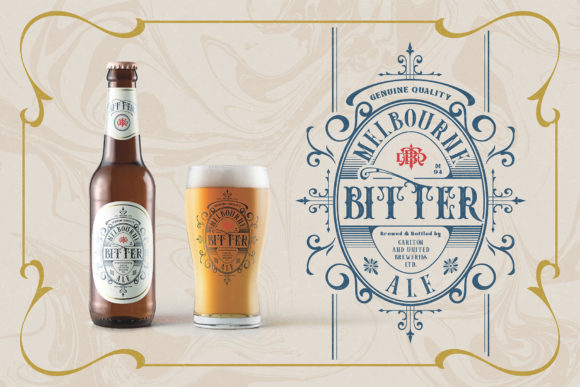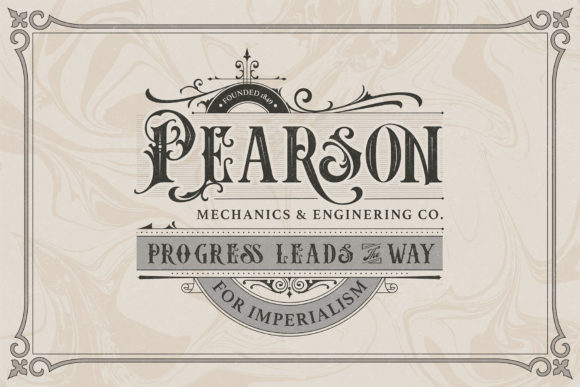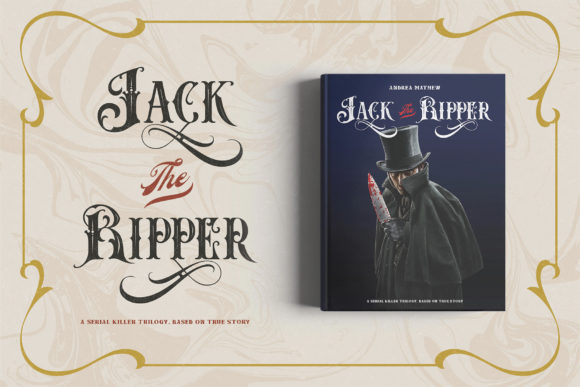
Introduction to Mooners Font
Have you ever stared at a blank canvas, struggling to bring your creative vision to life? The blank page can be daunting, but sometimes all it takes is the right design resource to spark inspiration. For designers seeking a high-quality, unique font to elevate their creative project, we’re excited to introduce you to Mooners Font – a stunning blackletter font that’s about to become your new go-to.
| 👤 Author | Burntilldead |
With its intricate details and ornate flair, Mooners Font is perfect for designers who crave a little extra something to make their designs stand out. And the best part? This font is PUA encoded, allowing you to access all of its glyphs and swashes with ease, making it a valuable addition to any designer’s toolkit.
- Unique and stylish design elements, including elegant lines and subtle textures, making it perfect for modern and minimalist designs.
- Designed to be highly legible and readable, even at small sizes, making it ideal for use in a variety of creative projects.
Honest Review: Mooners Font
As a designer, I’m always on the lookout for high-quality design resources that can elevate my creative projects. Recently, I had the chance to try out the Mooners Font, and I’m excited to share my honest review with you.
- ✨ Unique and playful design style that adds a touch of whimsy to any project
- ✨ High-quality font files that are crisp and clear, even at larger sizes
- ✨ Transparent background, making it easy to use on any design background
- ⚠️ Limited character set, which may not be suitable for longer blocks of text
- ⚠️ Not as versatile as some other fonts, which may limit its use in certain design contexts
Overall, I’m impressed with the Mooners Font, and I can see it being a great addition to any designer’s toolkit. The free download is a definite plus, making it an accessible option for designers on a budget. With a little creativity, I think this font has a lot of potential for adding a unique touch to your design projects.
Mooners Font: A High-Quality Design Resource
Tips for Getting the Most Out of Mooners Font
For optimal results, use Mooners Font with a transparent background to create a clean and modern design. Experiment with different font sizes and colors to add depth and visual interest to your project.
Common Use Cases for Mooners Font
Mooners Font is perfect for creating high-quality designs for various creative projects, including logos, brochures, posters, and social media graphics. Its high-quality design and transparent background make it an ideal choice for designers seeking a premium design resource.